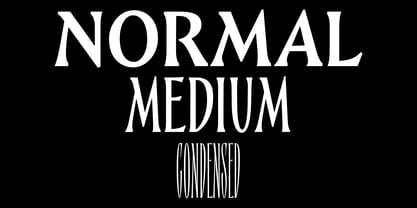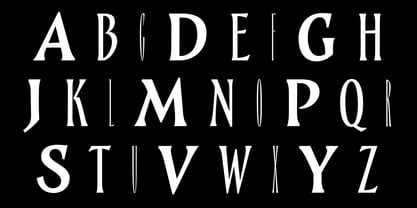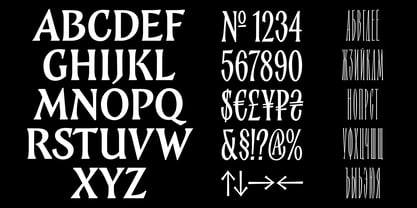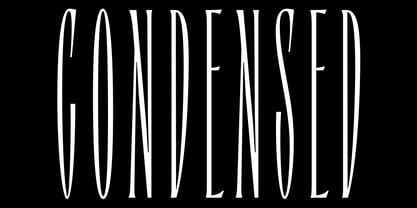
Epos Font
This Epos Font is perfect for epic storytelling projects, heroic brand communications, legendary book covers, classical literature publications, theatrical poster designs, historical documentary materials, monumental signage systems, grand cultural events, inspiring motivational content, and timeless narrative applications.
What makes this Epos Font exciting is its epic grandeur that captures the monumental power and heroic spirit of classical storytelling traditions. The font features majestic letterforms with legendary proportions that convey heroic excellence, timeless wisdom, and epic narrative strength. Its monumental character and classical authenticity make it ideal for brands seeking to communicate legendary stories, heroic values, and epic excellence in literary and cultural markets.
The Epos Font family includes light, regular, medium, and bold weights with classical alternates, heroic variants, and epic flourishes. This comprehensive legendary font family provides designers with monumental typographic tools to create epic compositions while maintaining the heroic character essential for literary publications and cultural brand communications.
Publishing houses and cultural institutions consistently choose Epos Font Free Download for projects requiring epic authenticity and heroic appeal. This font's distinctive legendary character perfectly captures the monumental storytelling and classical excellence that resonate with audiences who appreciate epic literature, heroic narratives, and brands that embody timeless cultural values.
The monumental construction of Epos Font showcases majestically crafted letterforms with epic proportions that ensure exceptional grandeur across all literary applications. Its heroic appearance and classical dignity create memorable impressions while maintaining the readability necessary for effective literary communication and cultural materials.
Professional designers appreciate how Epos Font brings immediate epic authority and classical presence to brand communications. The font's legendary nature allows organizations to communicate heroic excellence and monumental achievements while maintaining the professional quality necessary for effective positioning in literary and cultural heritage markets.
The timeless appeal of Epos Font makes it particularly effective for brands emphasizing epic storytelling, heroic values, and classical cultural excellence. Its majestic character resonates strongly with audiences who appreciate legendary literature, heroic narratives, and institutions that preserve and celebrate epic cultural traditions and monumental human achievements.
Whether developing materials for classical literature festivals or creating branding for heroic entertainment properties, Epos Font Free Download provides the epic typographic foundation that legendary brands need to communicate their monumental excellence, heroic storytelling, and the timeless grandeur that defines classical literature and epic cultural achievement.